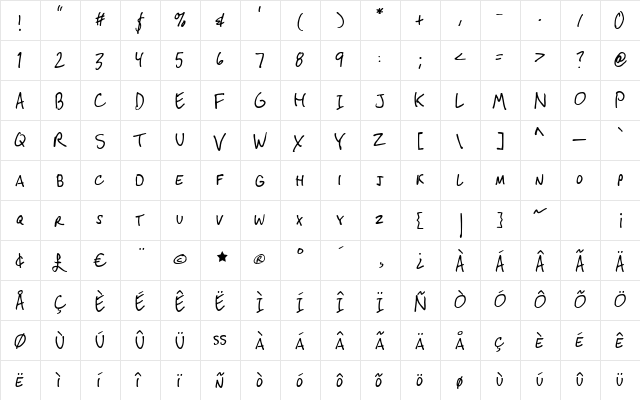
GFYHeySteve Regular
Design Context for GFYHeySteve Typeface
GFYHeySteve is a composed and adaptable typeface that performs quietly and consistently across a wide range of design contexts.